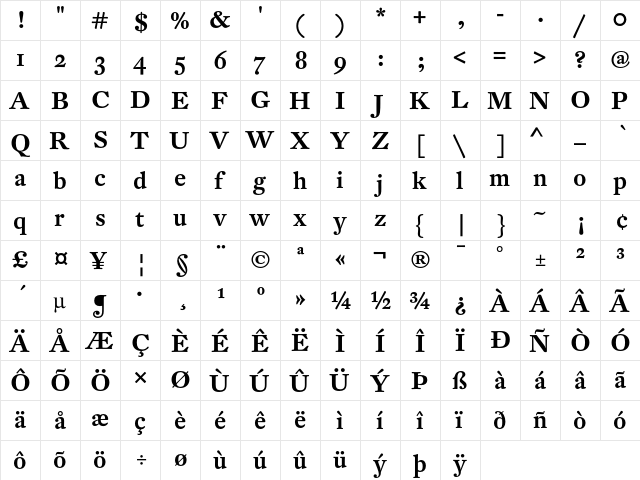
DTL Fleischmann ST Medium Font Preview
DTL Fleischmann ST Medium
DTL Fleischmann ST Medium Font Details
Design Context for DTL Fleischmann Typeface
DTL Fleischmann takes a measured approach to typography — its balanced proportions and neutral character make it a reliable workhorse for both digital and print work.